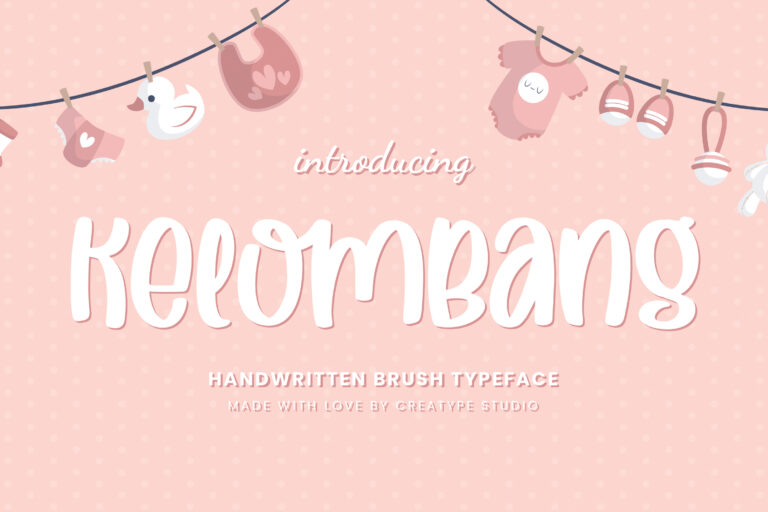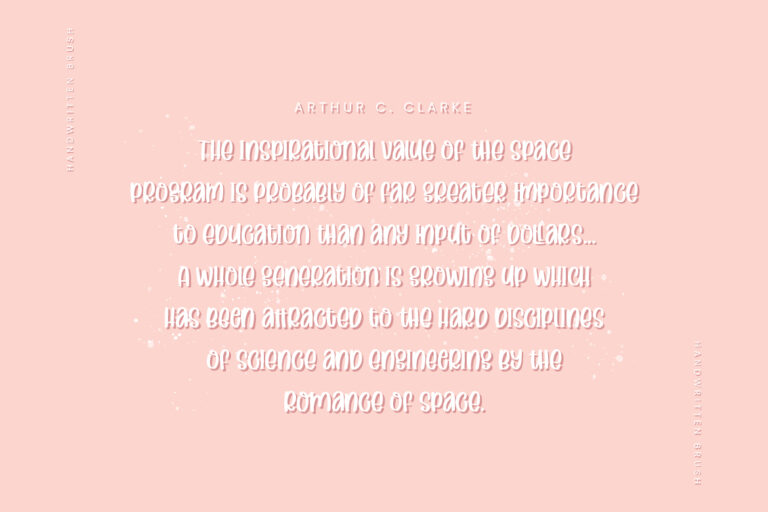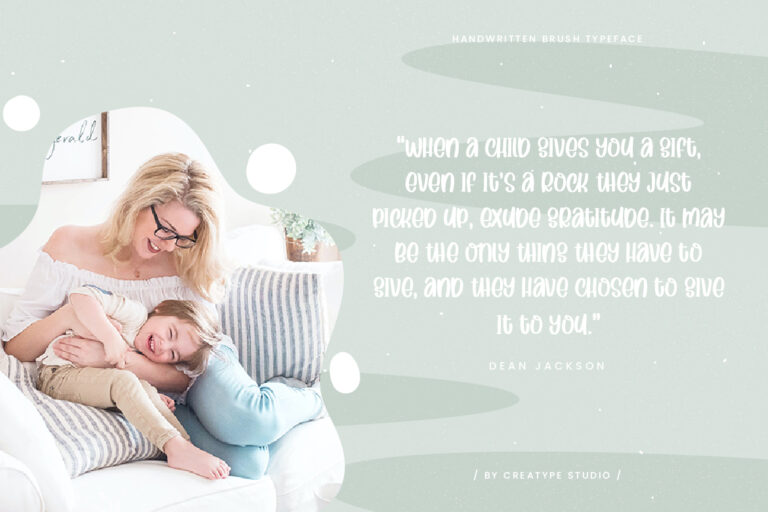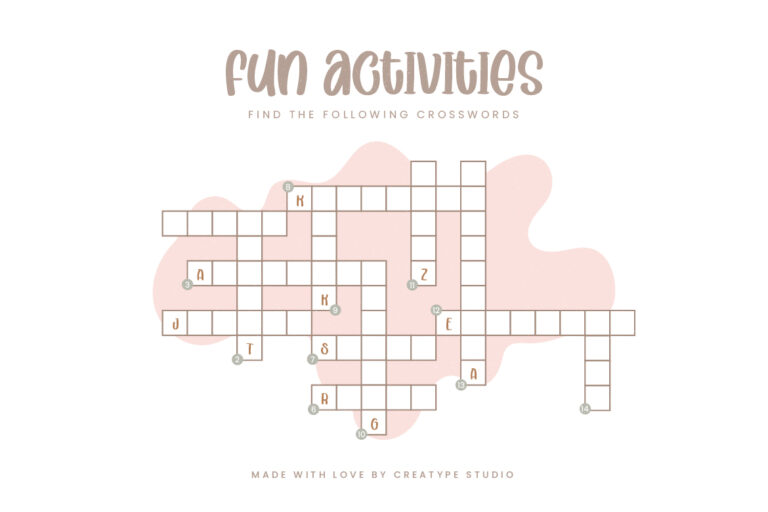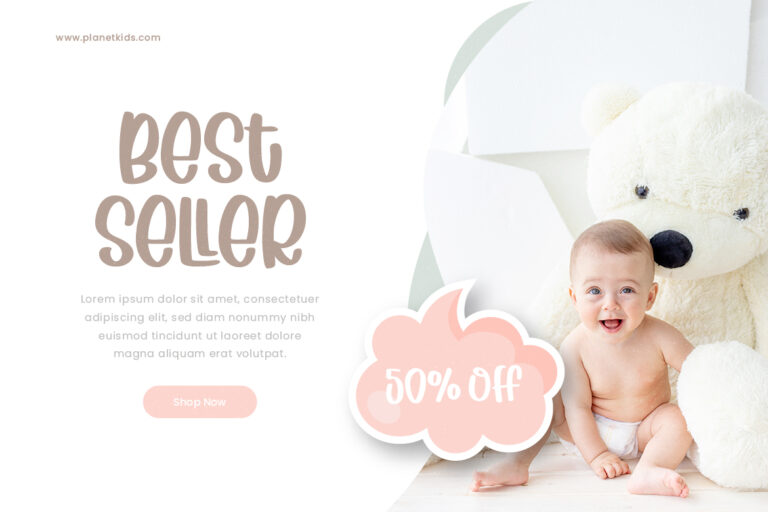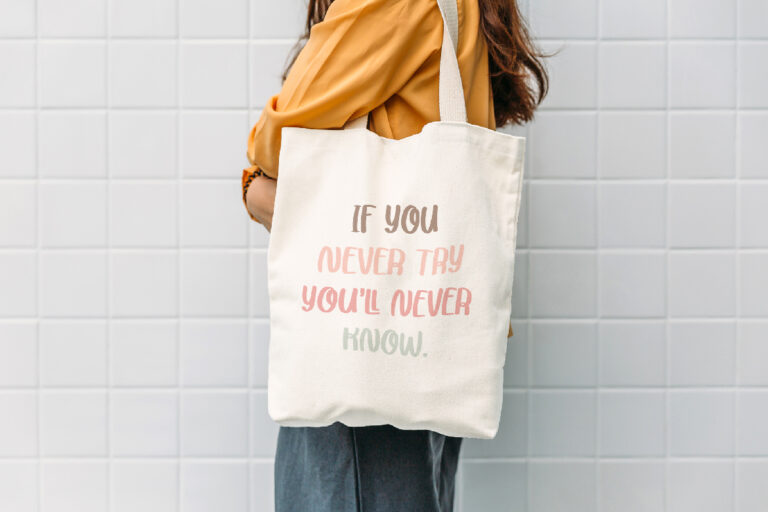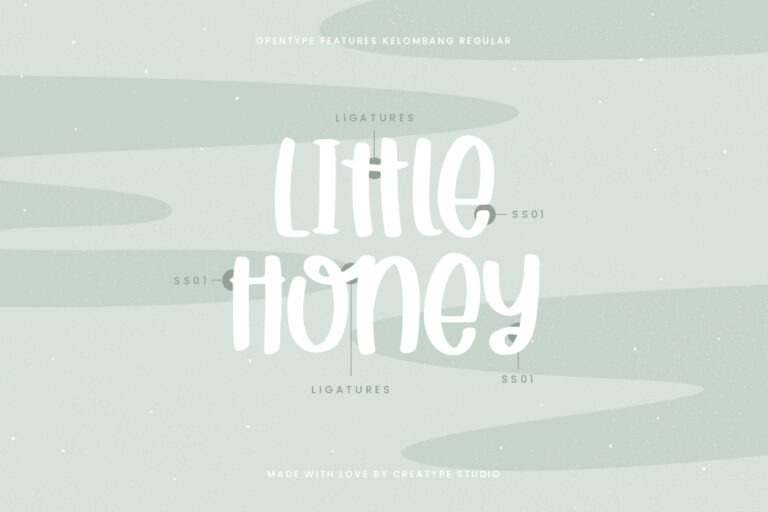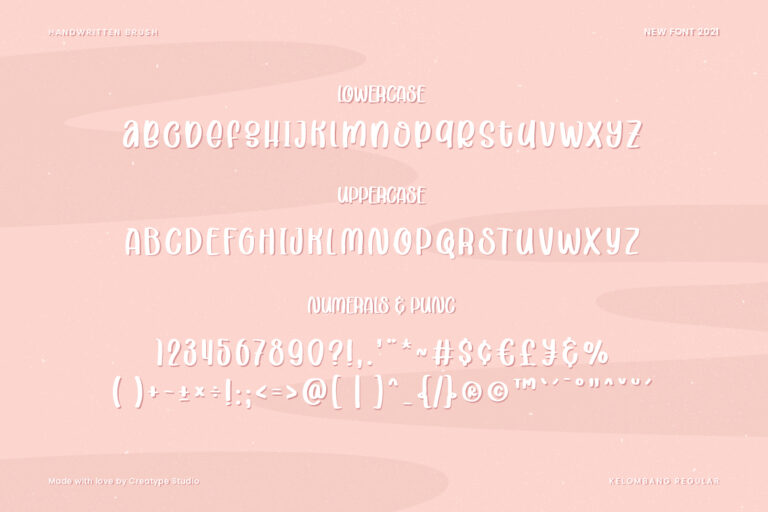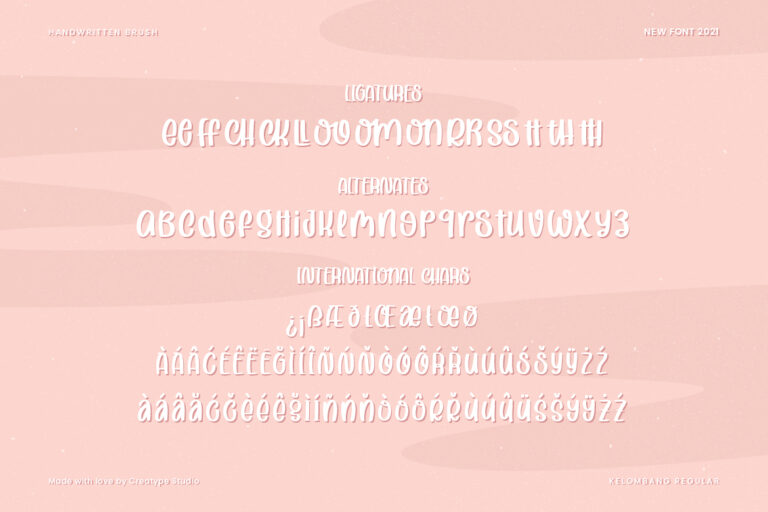
Kelombang is a handwritten brush typeface made with love, resulting in a font that looks so cute, fresh and adorable. With its adorable shape, this font is perfect for all your products that require a cheerful feel.
Kelombang is perfect for branding projects, logo, wedding designs, social media posts, advertisements, product packaging, product designs, label, photography, watermark, invitation, stationery and any projects that need handwriting taste.
• Ton of glyphs
• Ligature & Alternate
• Fonts include multilingual support for; Afrikaans, Albanian, Czech, Danish, Dutch, English, Estonian, Finnish, French, German, Hungarian, Italian, Latvian, Lithuanian, Norwegian, Polish, Portuguese, Slovak, Slovenian, Spanish, Swedish.
Kelombang Handwritten Brush